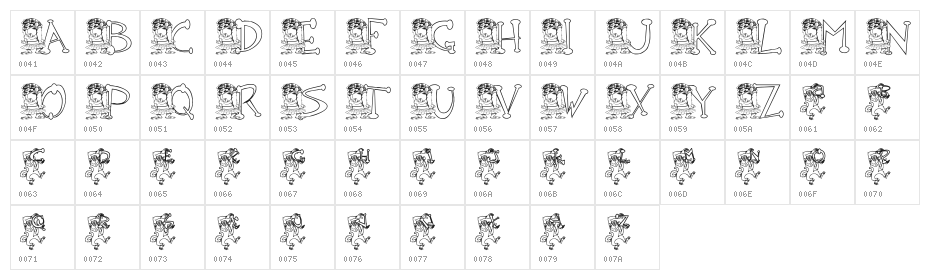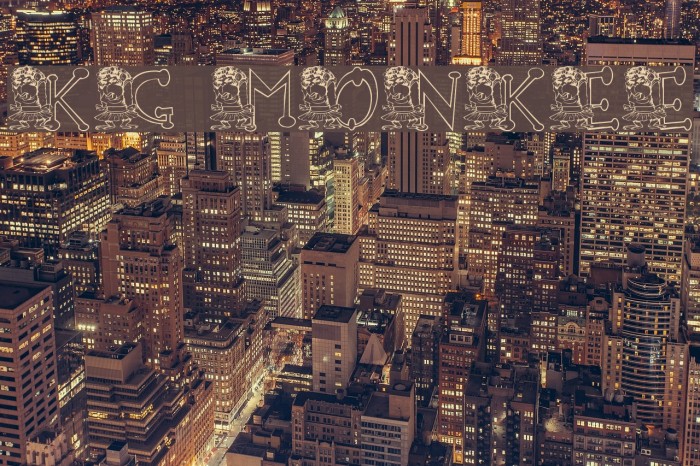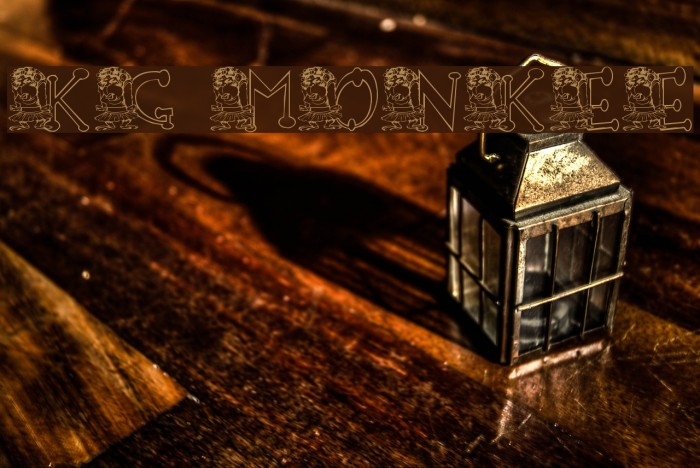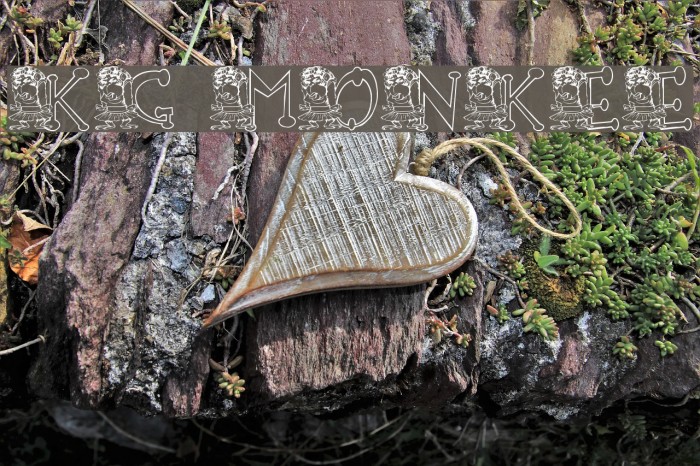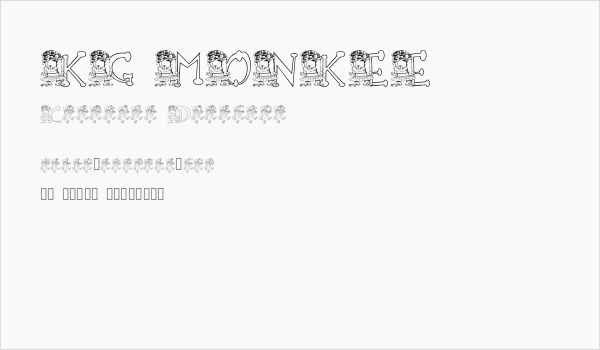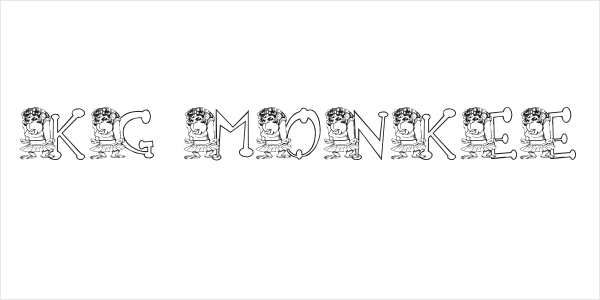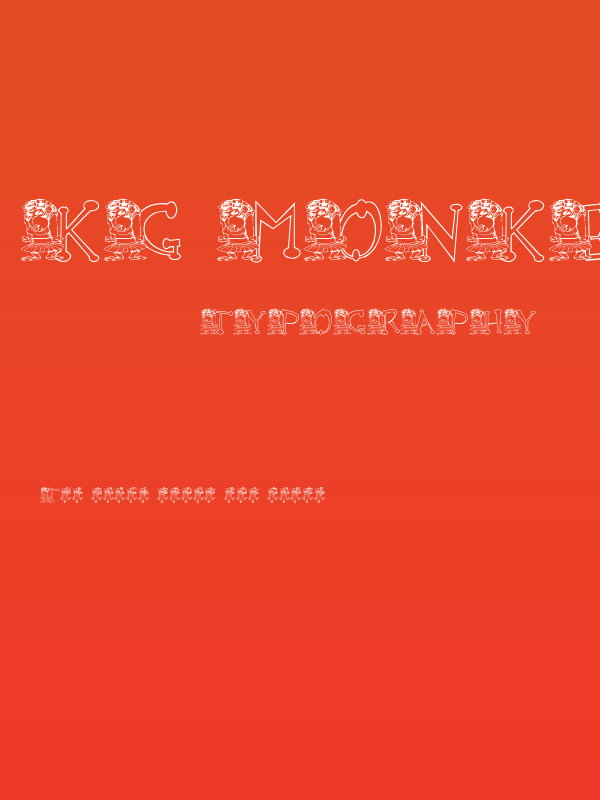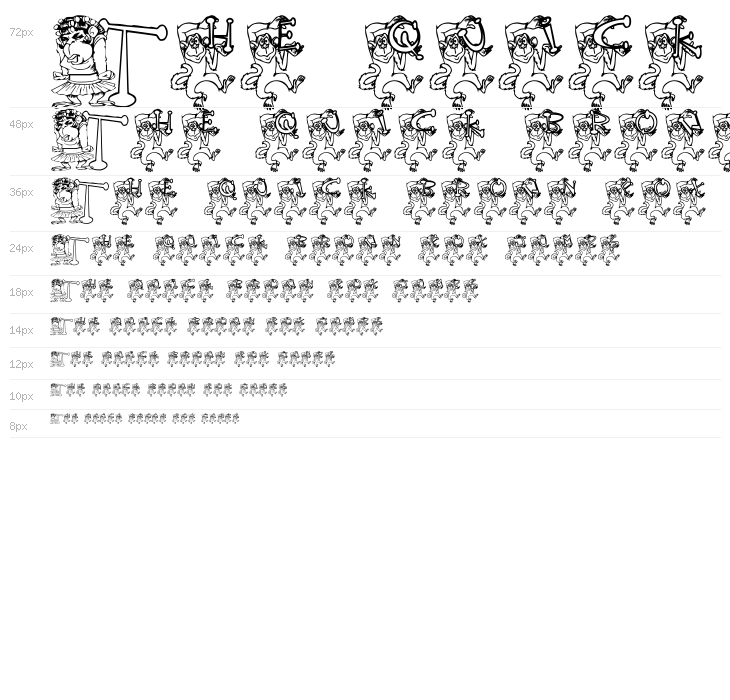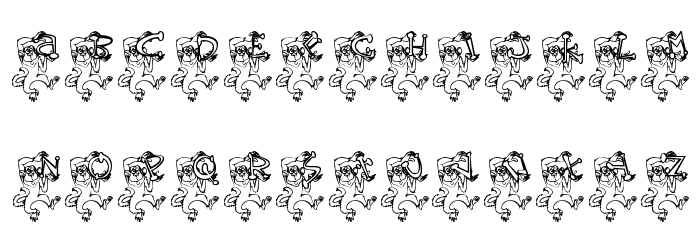
KG MONKEE Font
KG MONKEE Description
This playful and whimsical font features each letter encapsulated within a cartoonish monkey design. The characters are highly decorative, with intricate details that make each letter stand out as a unique piece of art. The font is characterized by its fun and lively appearance, making it ideal for projects that require a touch of humor and creativity. The letters are consistent in style, with each one incorporating the monkey motif in a way that is both cohesive and visually engaging. This font does not include numbers or standard punctuation, focusing instead on the alphabet and a few special characters.
| Proposed Projects | Ideal for children's book covers, playful posters, party invitations, and any project that requires a fun and engaging typeface. |